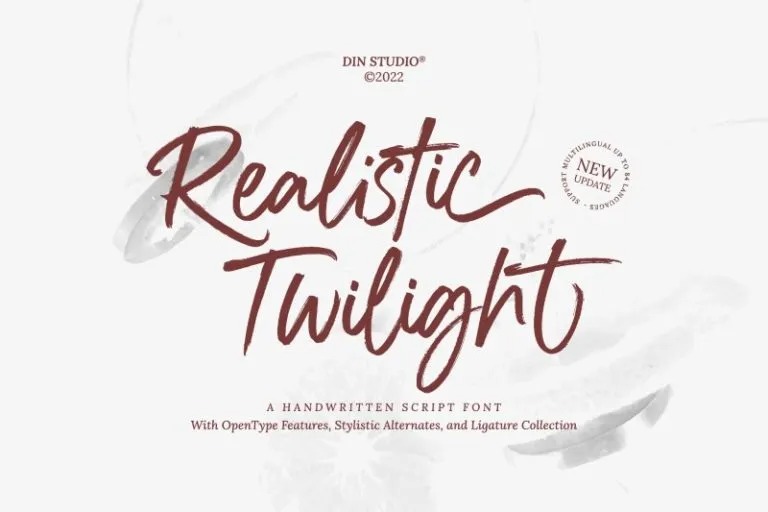
Realistic Twilight Font
Realistic Twilight Brush Font
This is a script brush font that has its own uniqueness and characteristics from brush fonts, because it is handwritten manually. This font support multi languages to make your branding can reach global audiences. Realistic Twilight is perfect to be used for invitation, logos, heading, cover, poster,, quotes, header, merchandise, social media & greeting cards and many more.